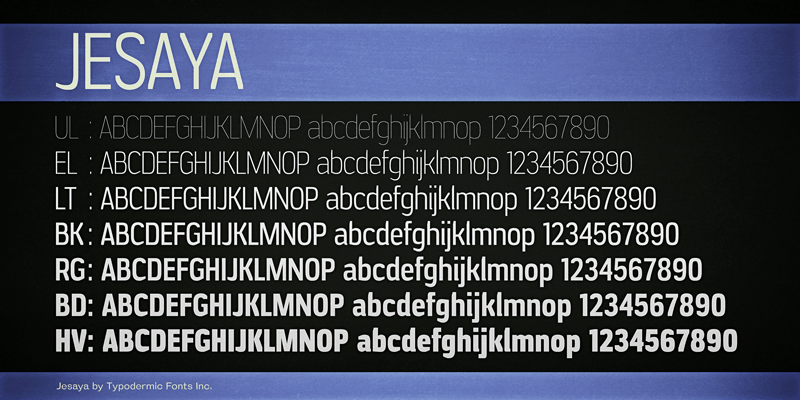
Jesaya’s crisp shapes put a sharp new face on whatever you have to say. Shaved sharps prevent typographic injury while seven weights give Jesaya range. This font includes a license that allows free commercial use: sometimes referred to as a desktop license. This allows you to install the font on a computer and use it to create posters, web graphics, game graphics, t-shirts, videos, signs, logos and more. Read the license agreement for details. If you'd like to embed this font in an app, ebook, on the web or anything that's not covered by the desktop license agreement, visit the link below. You'll find distributors who offer different types of licenses or you can contact me for help. http://typodermicfonts.com/jesaya/ This free font is part of a larger font family. Check out the rest of the family through the link above. |